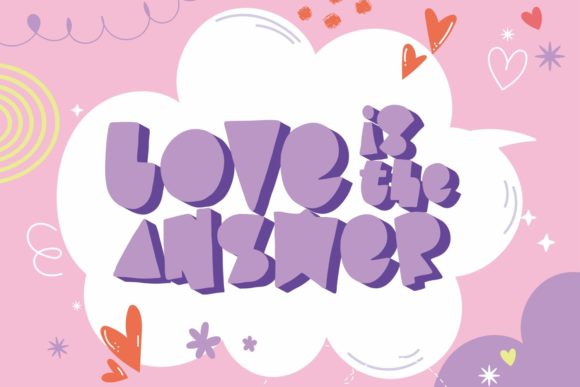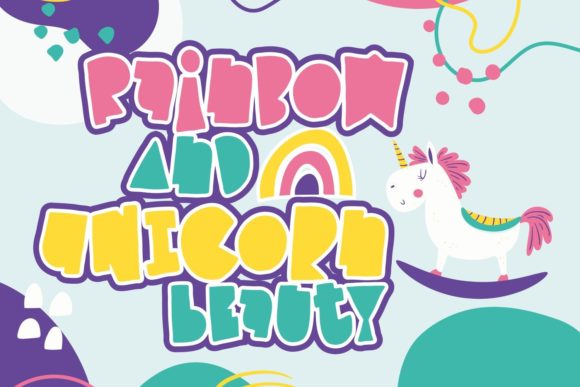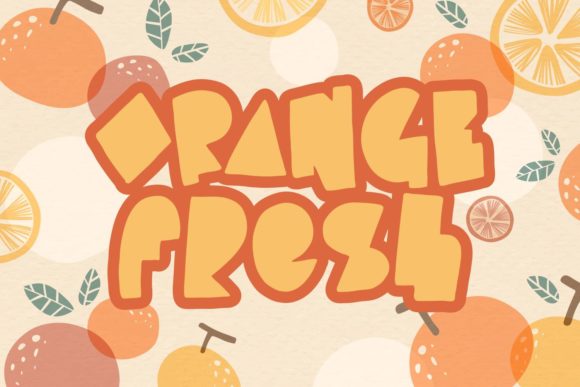
Introduction to Jenie Jhonny Font
Have you ever stumbled upon the perfect font while working on a creative project, and suddenly, your design comes to life? That’s exactly what happened when I discovered the Jenie Jhonny Font. Its adorable, chunky letters are an instant mood-booster, making it perfect for children-themed designs that call for a playful touch.
As a designer, having access to high-quality fonts like Jenie Jhonny Font can be a game-changer. It’s not just about having a pretty face; it’s about the emotional connection it creates with your audience. And that’s precisely what makes Jenie Jhonny Font so valuable – it has the power to evoke feelings of joy and playfulness, making it an indispensable design resource for any creative project.
Key Features of Jenie Jhonny Font
- High-quality design resource perfect for creative projects, offering a unique and modern aesthetic.
- Comes with a transparent background, allowing for seamless integration into various design applications.
- Resolution: Optimized for high-resolution displays, ensuring crisp and clear typography at any size.
- Unique characteristics: Jenie Jhonny Font features a distinctive blend of modern and vintage elements, making it ideal for creative projects that require a touch of elegance and sophistication.
Honest Review: Jenie Jhonny Font
I recently came across the Jenie Jhonny Font, and I must say it’s a great addition to any designer’s collection. With a free download available, it’s an excellent resource for creative projects that require a unique touch.
One of the standout features of this font is its versatility. It can be used for a variety of purposes, from titles to body text, making it a great all-around choice. Additionally, the transparent background option allows for seamless integration with other design elements.
Here are some of the things that work well with the Jenie Jhonny Font:
- ✨ Unique and stylish design
- ⚠️ Limited character set (only includes uppercase and lowercase letters)
- ⚠️ No support for special characters or symbols
Overall, the Jenie Jhonny Font is a solid choice for designers looking for a high-quality, free font. While it may have some limitations, its unique design and versatility make it a great addition to any design resource collection.
How to Use Jenie Jhonny Font
Common Use Cases for Jenie Jhonny Font
The Jenie Jhonny Font is ideal for various design projects, including business cards, brochures, and social media graphics. Its high-quality design and transparent background feature make it a versatile design resource for creatives.
Tips for Getting the Most Out of Jenie Jhonny Font
To get the most out of the Jenie Jhonny Font, experiment with different font sizes, colors, and combinations to create visually appealing designs. You can also use this font in conjunction with other design elements to enhance the overall look and feel of your project.